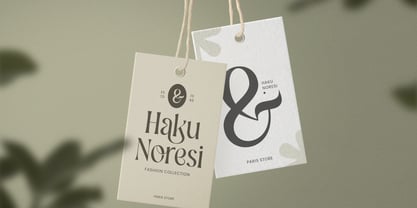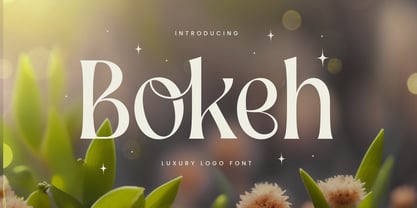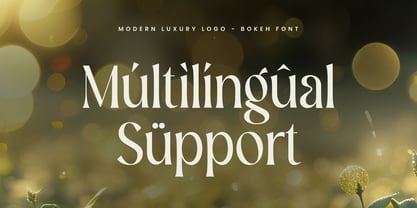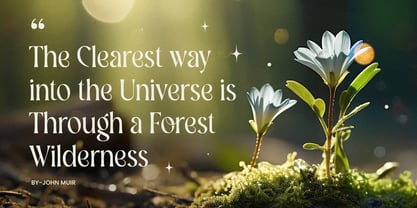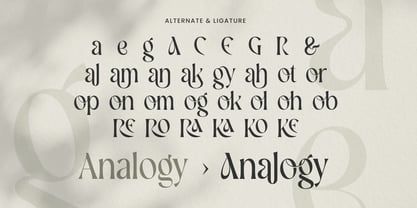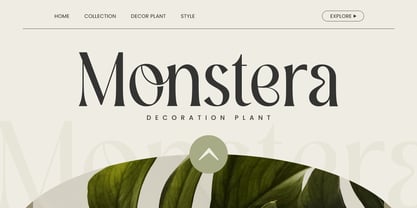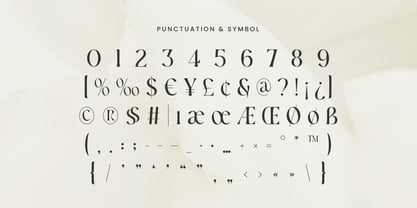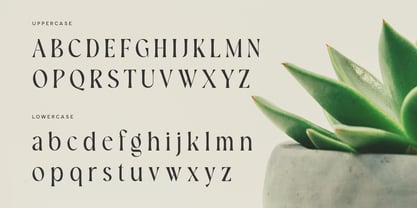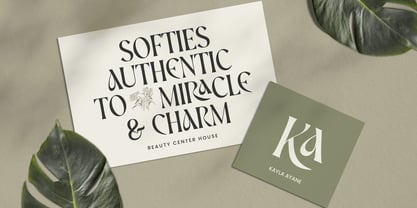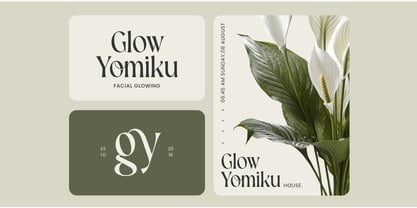
Bokeh
Die Schriftfamilie Bokeh wurde von Zamroni Hamzah entworfen und von Sensatype Studio veröffentlicht. Bokeh enthält 2 Stile und Familienpaketoptionen. Mehr über diese Familie
Bokeh - Luxury Logo Font
Bokeh is a luxury logo font crafted to embody sophistication and exclusivity. Its sleek, elegant lines make it the perfect choice for high-end branding, fashion labels, and premium product packaging. Inspired by the blur and light effect of a camera's bokeh, this font captures a sense of timeless luxury and modern refinement.
Designed to enhance the visual identity of any luxury brand, Bokeh is ideal for logos, business cards, and promotional materials that need to leave a lasting impression. Its clean yet creative structure makes it versatile, fitting seamlessly into both minimalistic and elaborate designs.
With multilingual support and various ligatures and alternate characters, Bokeh offers designers the flexibility to tailor their projects to perfection. Its luxurious style will elevate any project, ensuring a distinct and refined aesthetic for any brand.
Bokeh Luxury Logo Font Features:
• Luxury Ligature & Alternative Characters Ready
• Unique Punctuation, Number, and Symbol
• Uppercase and Lowercase
• Multilingual Support
• Opentype Features